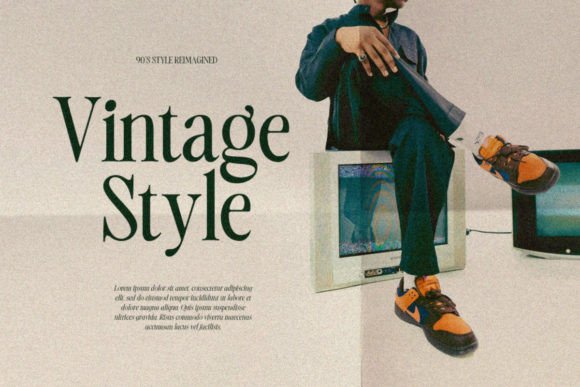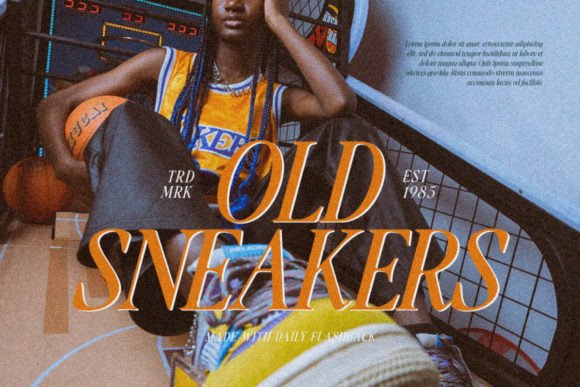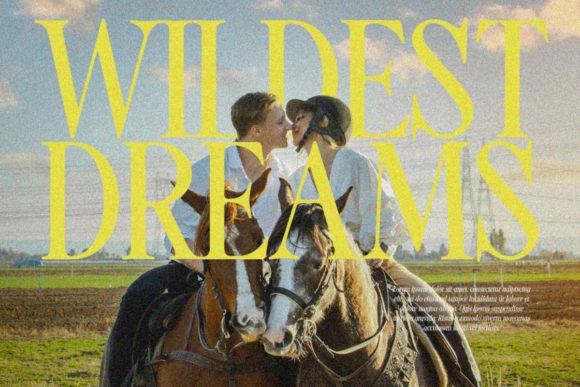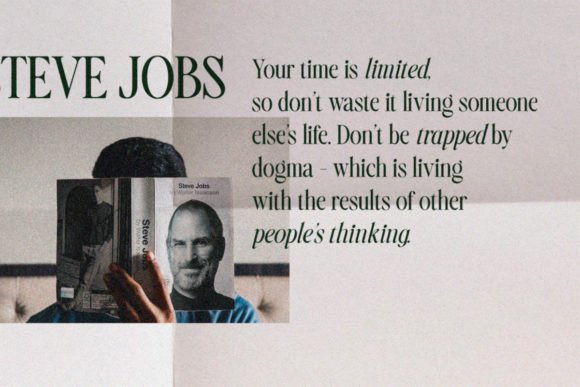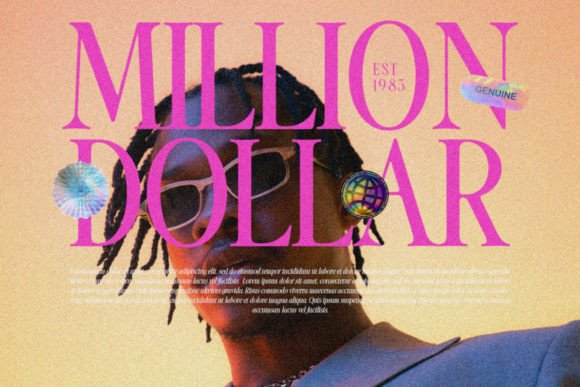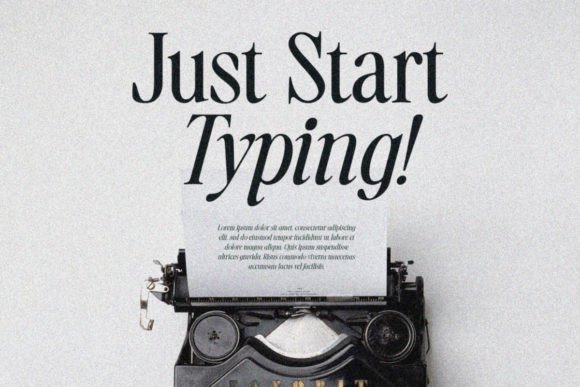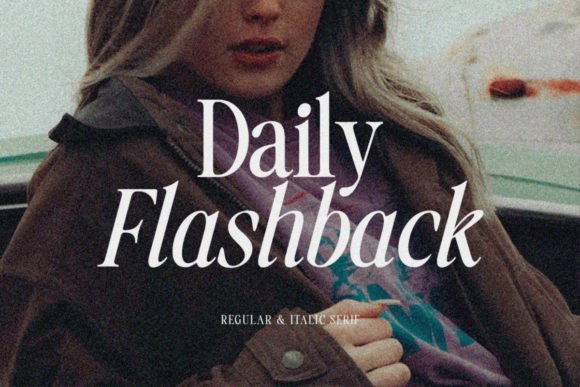
The Daily Flashback Font: A Timeless Elegance for Your Creative Projects
I’ll never forget the time I was working on a wedding invitation design project, and my client asked for a font that exuded classic sophistication. I scoured the internet, tried out countless fonts, but none seemed to fit the bill. That was until I stumbled upon the Daily Flashback font. ✨ It was love at first sight! The elegant serifs, the refined lines, and the versatility – it was exactly what I needed. In this article, I’ll share my experience with the Daily Flashback font, its features, and how to make the most of it in your designs.
- ✨ Elegant serif design that adds a touch of sophistication to any project
- ✅ Highly versatile, suitable for a wide range of applications, from invitations to packaging
- ✅ Well-crafted, with attention to detail and a clear sense of style
- ✅ Supports multiple languages and OpenType features
While the Daily Flashback font is an excellent choice, there are a few minor quirks to be aware of:
- ⚠️ Some users may find the font a bit too ornate for very casual or playful projects
- 🤔 Limited availability of certain stylistic alternates, which may require additional design workarounds
The Daily Flashback font was designed with the goal of creating a timeless, elegant typeface that would evoke the classic feel of vintage printing. The designer drew inspiration from traditional serif fonts, while incorporating modern touches and OpenType features. The result is a font that feels both nostalgic and contemporary.
Q: What is the Daily Flashback font best suited for?
A: The Daily Flashback font is perfect for projects that require a touch of elegance and sophistication, such as invitations, labels, logos, magazines, books, greeting/wedding cards, packaging, fashion, make-up, stationery, novels, or any type of advertising purpose.
Q: Is the Daily Flashback font suitable for body text?
A: While the Daily Flashback font is elegant and refined, it may not be the best choice for long-form body text. Consider using a font with a more traditional serif design, such as Georgia or Merriweather, for extended reading.